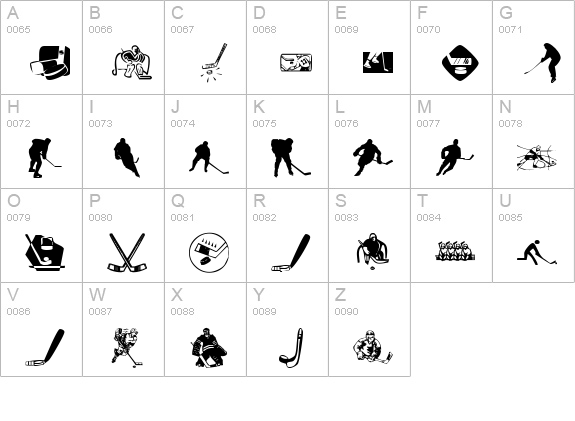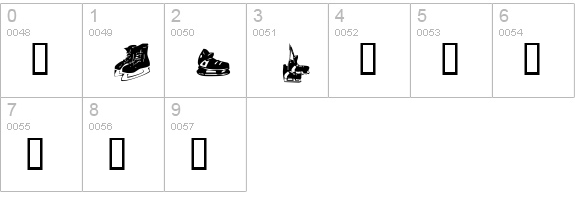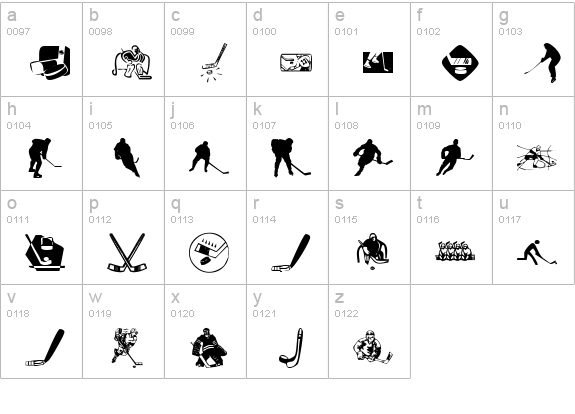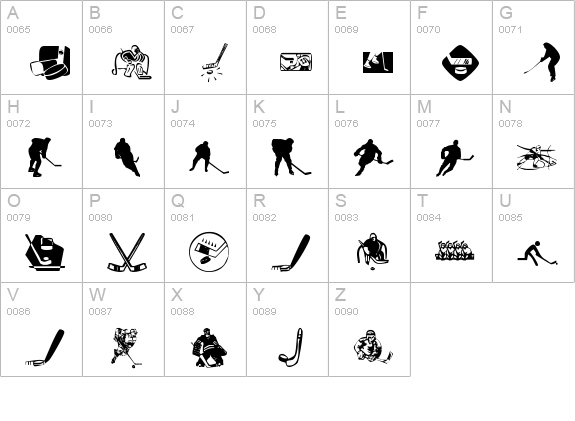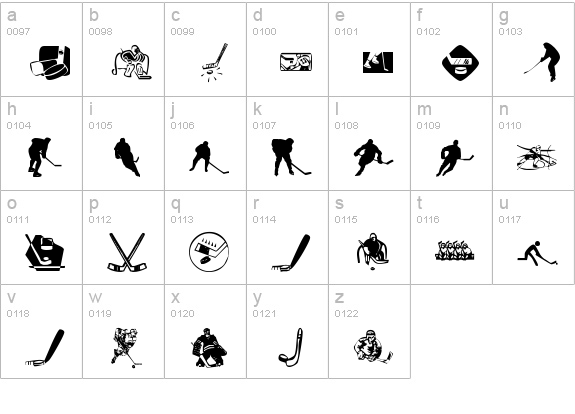
KR Hockey Dings Font Details
Introducing KR Hockey Dings font, a dynamic and sporty typeface perfect for all your hockey-themed projects. This font features a collection of hockey-inspired symbols and icons that will add a fun and energetic touch to any design. Whether you are creating posters, flyers, or social media graphics for your favorite hockey team or event, KR Hockey Dings font is sure to make a bold statement. Best of all, KR Hockey Dings font is available for free download at FontsMarket.com. With its unique style and versatility, this font is a must-have for any hockey enthusiast or designer looking to add a touch of excitement to their work. Get your hands on KR Hockey Dings font today and take your designs to the next level!